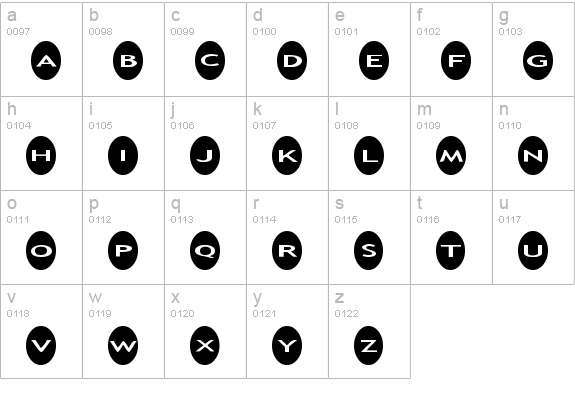
The AlphaShapes ovals font is a unique and modern typeface that features elegantly designed oval shapes for each letter. This font exudes a sense of sophistication and creativity, making it perfect for a wide range of design projects. The smooth curves and clean lines of the ovals create a harmonious and visually appealing look that will make your text stand out. What's even better is that AlphaShapes ovals font is available for free download at FontsMarket.com. This means you can easily access this stunning font and use it in your projects without any cost. Whether you're working on branding, advertising, packaging, or any other design work, the AlphaShapes ovals font is sure to add a touch of elegance and style. Download it today and elevate your designs with this beautiful and versatile typeface.